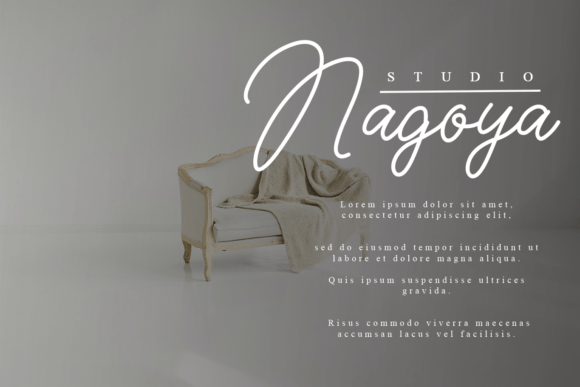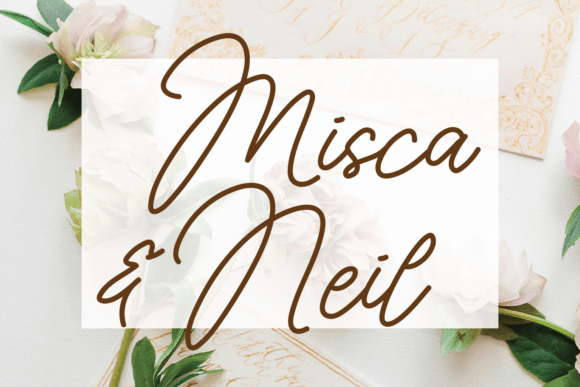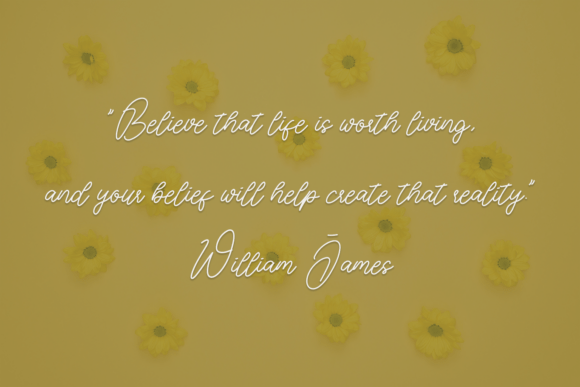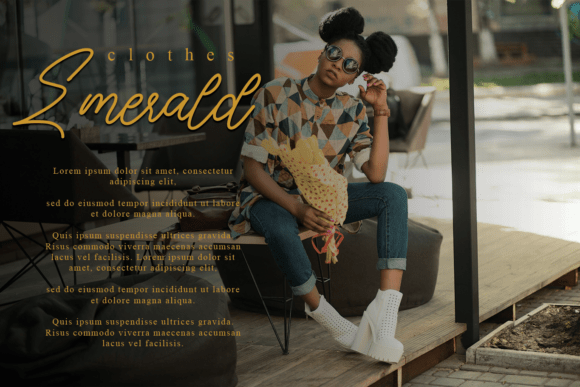
Introducing Autumn Signature Font: Elevate Your Designs with Elegance
Are you a designer or crafter looking for a font that exudes sophistication and style? Look no further than Autumn Signature Font, a beautiful handwritten font that is sure to elevate your designs. With its flowing and graceful script, Autumn Signature is the perfect choice for creating stunning wedding invitations, gorgeous stationery art, eye-catching social media posts, and much more.
The Chic Style of Autumn Signature Font
Autumn Signature Font boasts a chic and elegant style that is sure to impress. Its handwritten script is both modern and classic, making it versatile enough to be used in a variety of design applications. The font’s flowing lines and graceful curves give it a sense of movement and fluidity, making it perfect for creating beautiful and eye-catching designs.
Perfect for Wedding Invitations and Stationery
Autumn Signature Font is an ideal choice for creating stunning wedding invitations and stationery. Its elegant and sophisticated style makes it perfect for formal wedding designs, while its modern and playful feel also makes it suitable for more casual and rustic wedding themes. Whether you’re designing invitations, save-the-dates, or thank-you cards, Autumn Signature Font is sure to add a touch of elegance and sophistication to your designs.
Eye-Catching Social Media Posts and More
But Autumn Signature Font isn’t just limited to wedding invitations and stationery. Its versatility makes it perfect for creating eye-catching social media posts, blog headers, and other digital designs. Use it to add a touch of elegance and sophistication to your social media profiles, or to create beautiful and engaging blog posts that will capture the attention of your readers.
Why Choose Autumn Signature Font?
So why choose Autumn Signature Font over other fonts? Here are just a few reasons:
- Unique and Elegant Style: Autumn Signature Font boasts a unique and elegant style that is sure to set your designs apart from the rest.
- Versatile: The font’s versatility makes it perfect for use in a variety of design applications, from wedding invitations to social media posts.
- Easy to Read: Despite its elegant and cursive script, Autumn Signature Font is easy to read, making it perfect for use in designs where clarity is key.
- High-Quality: Autumn Signature Font is a high-quality font that is designed to deliver exceptional results, whether you’re designing for print or digital.
Tips for Using Autumn Signature Font
Here are a few tips for using Autumn Signature Font in your designs:
- Use it as a Headline Font: Autumn Signature Font is perfect for use as a headline font, where its elegant and sophisticated style can really shine.
- Pair it with Other Fonts: Don’t be afraid to pair Autumn Signature Font with other fonts to create a unique and interesting design.
- Experiment with Colors: Autumn Signature Font looks great in a variety of colors, so don’t be afraid to experiment and find the perfect color for your design.
Autumn Signature Font is a beautiful and elegant handwritten font that is sure to elevate your designs. With its flowing and graceful script, it’s perfect for creating stunning wedding invitations, gorgeous stationery art, eye-catching social media posts, and much more. Whether you’re a designer or crafter, Autumn Signature Font is a must-have font that is sure to become a favorite in your collection.